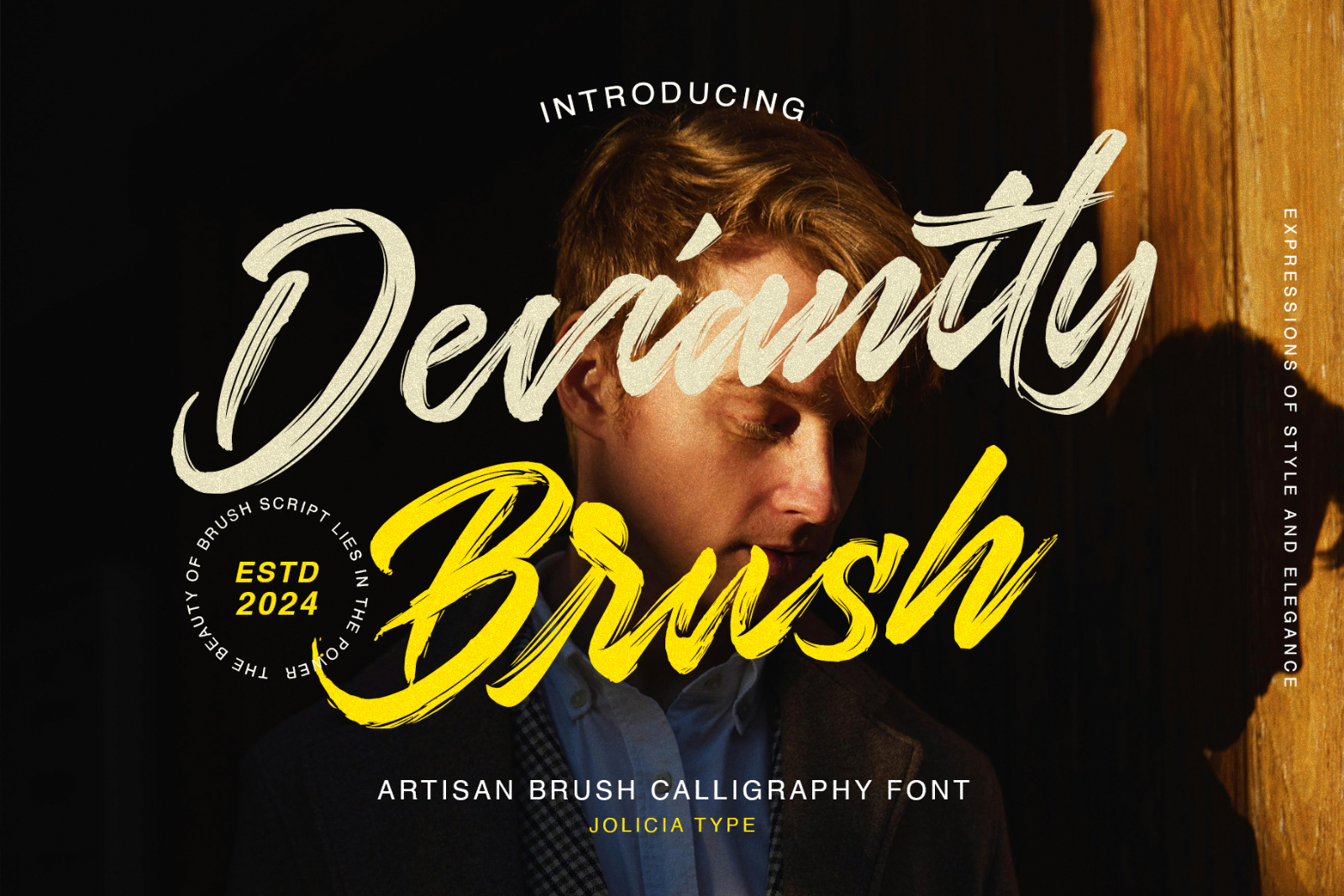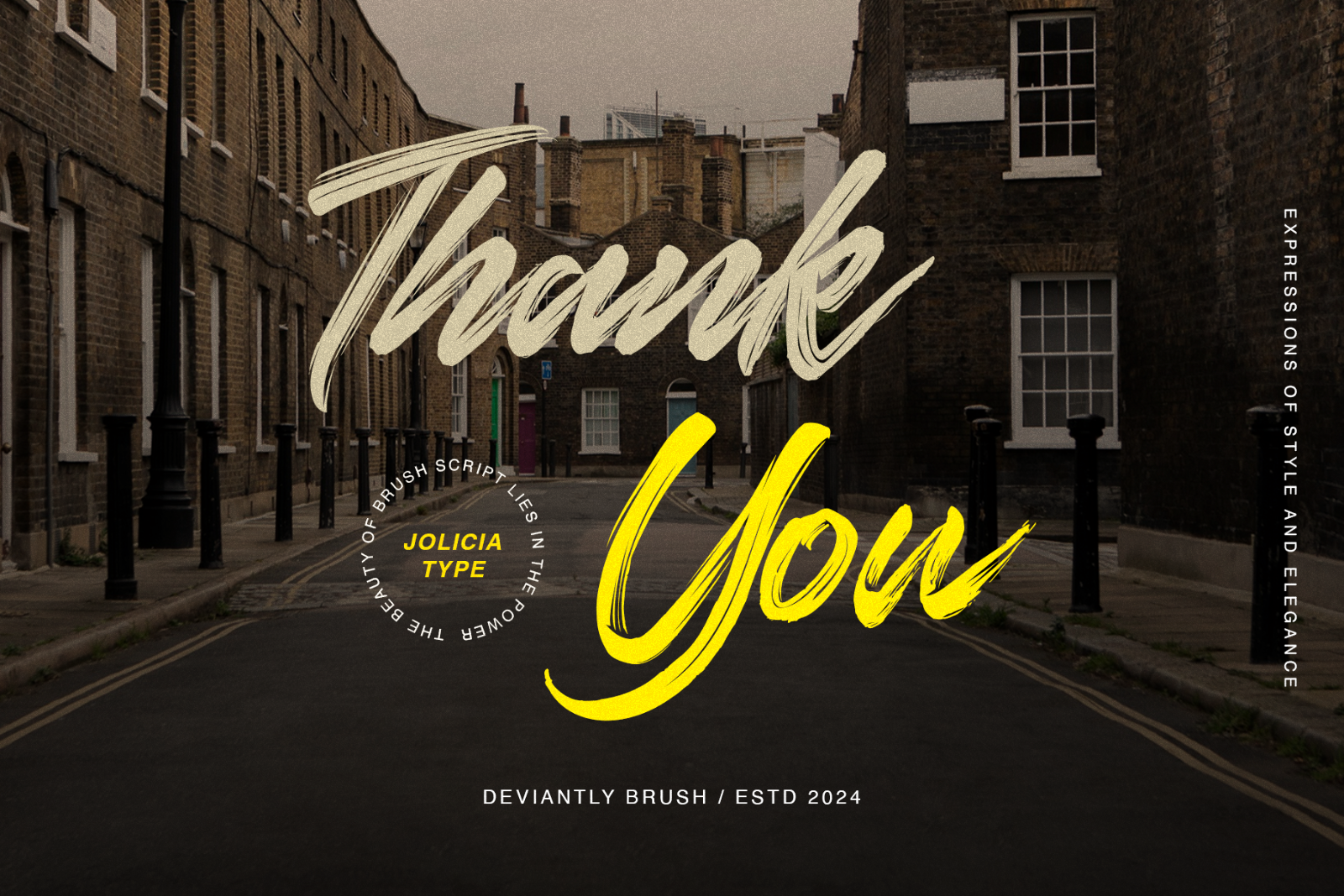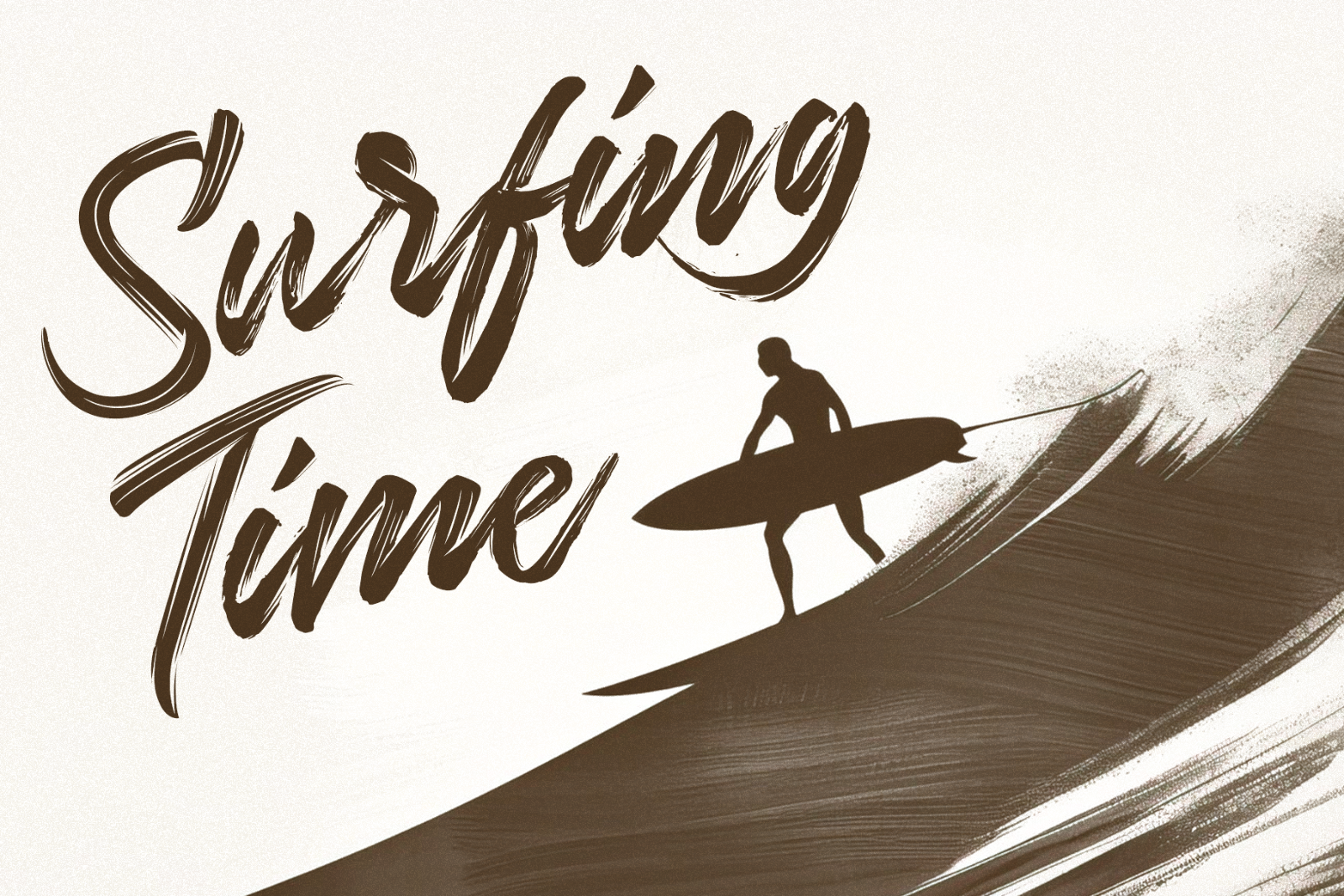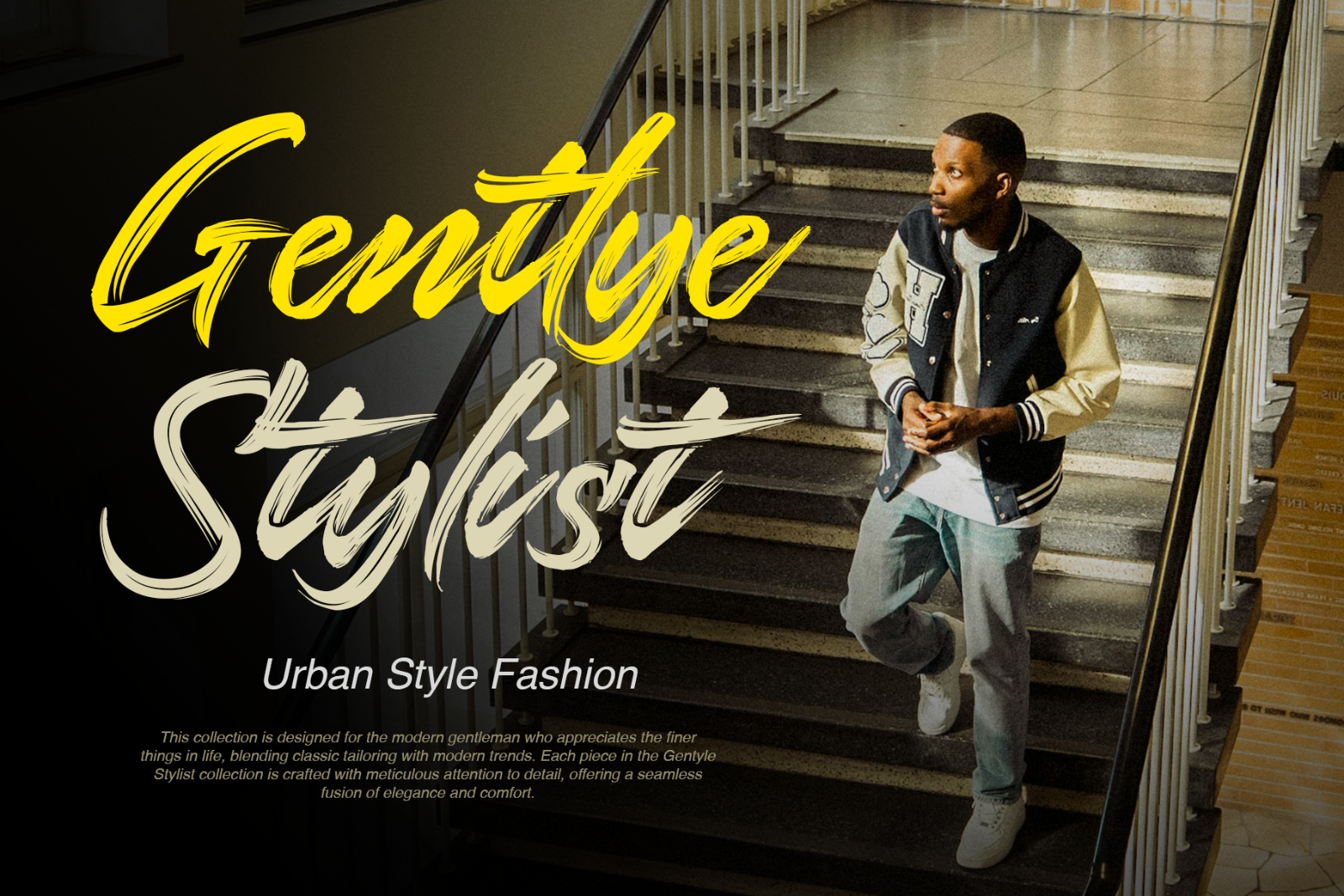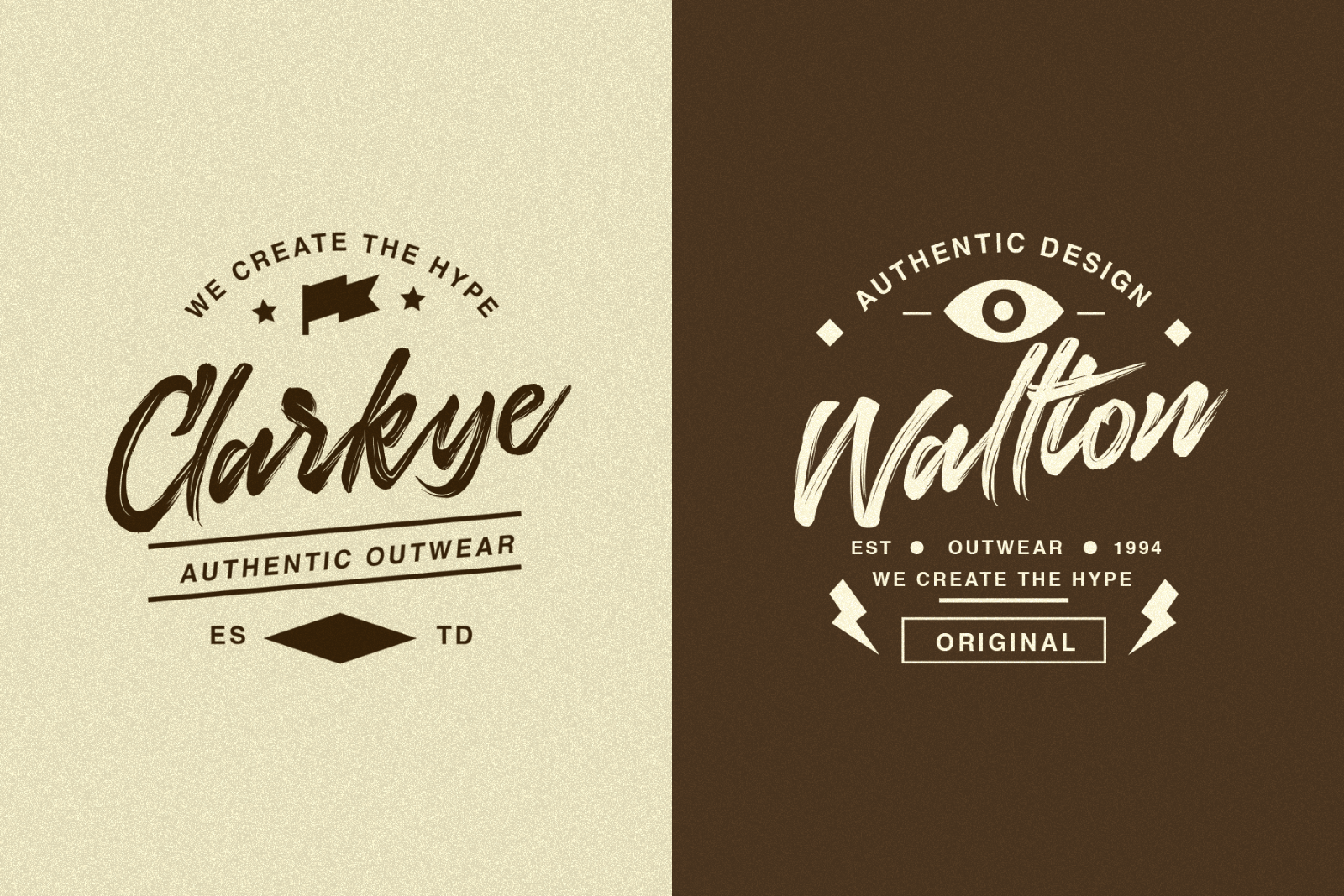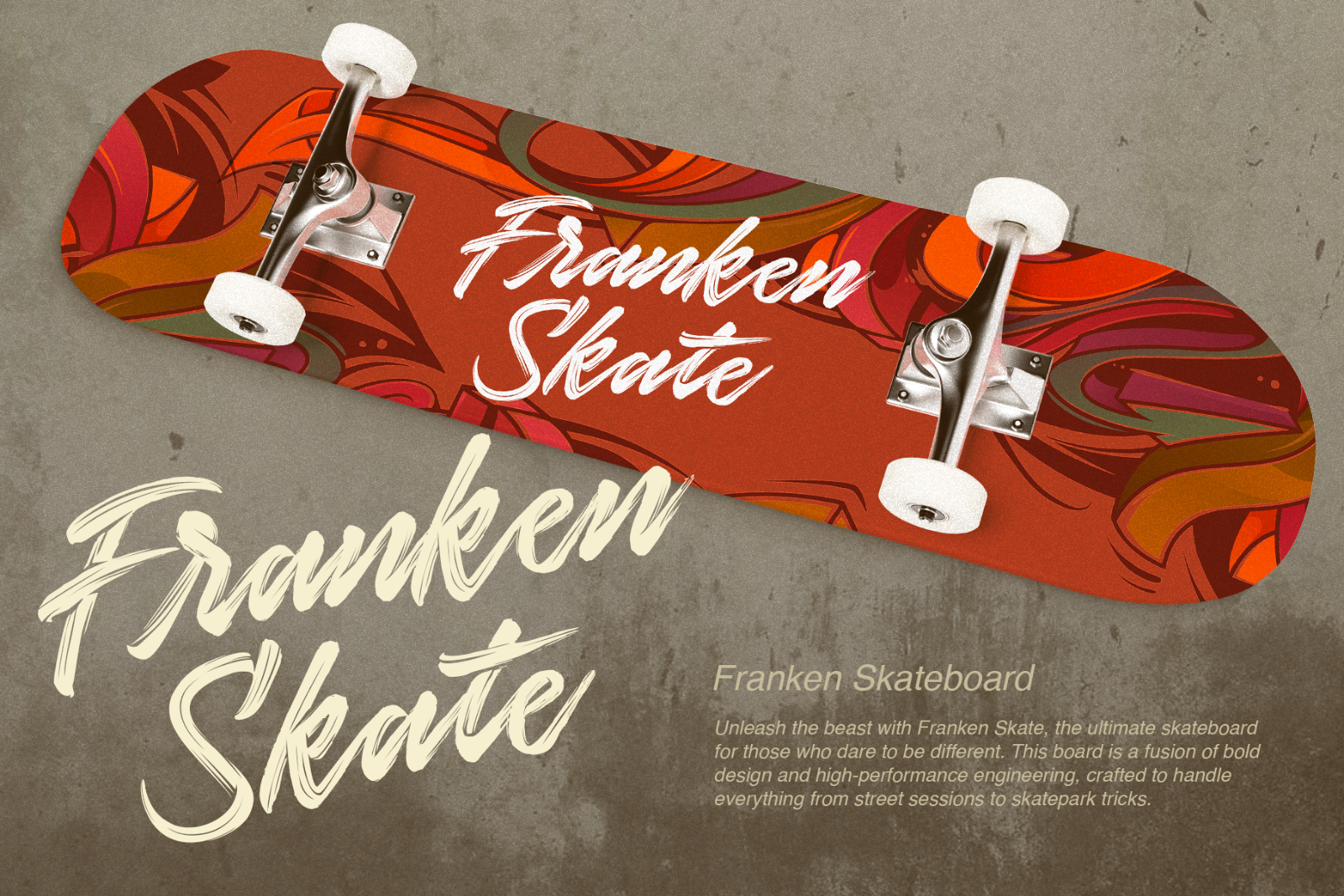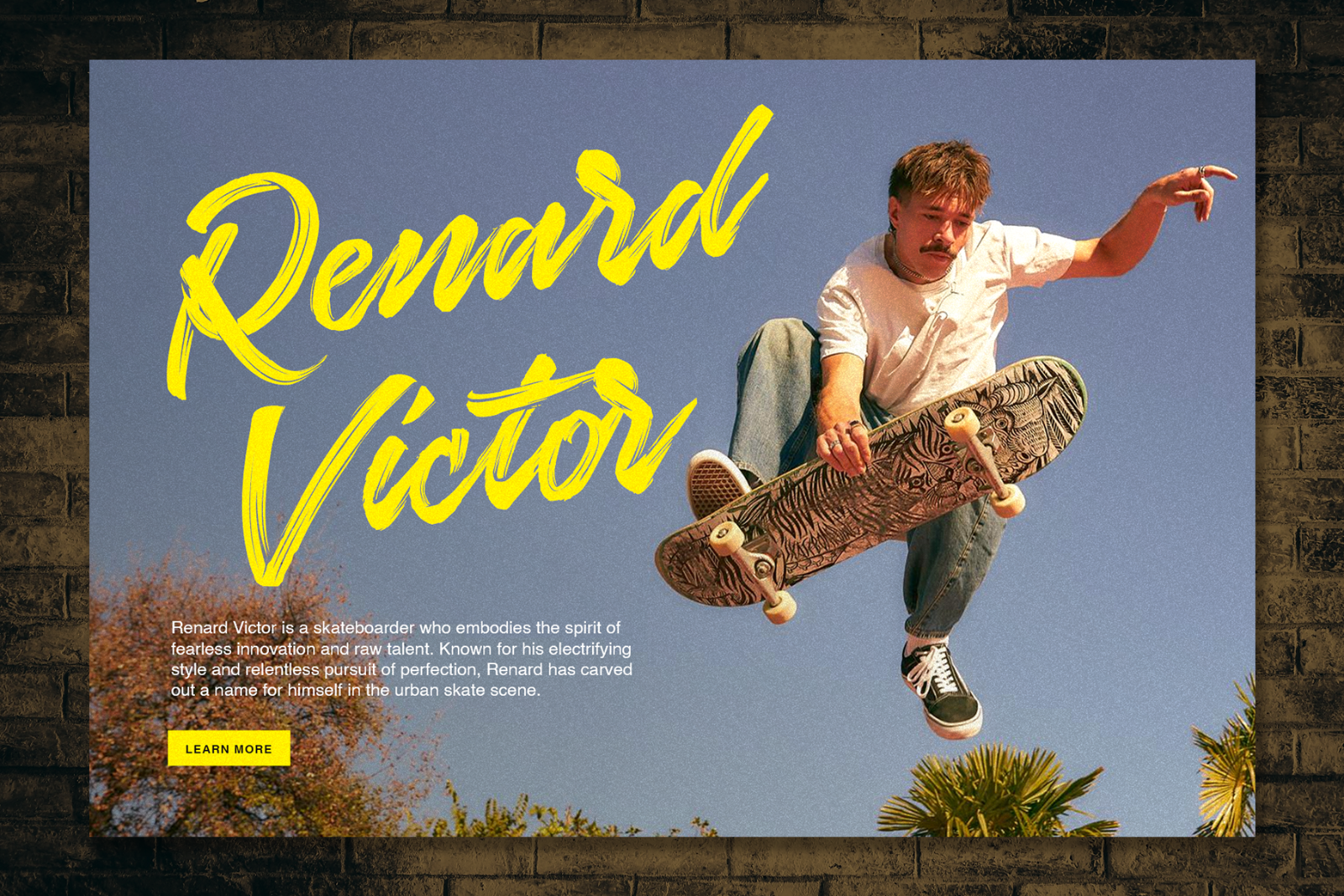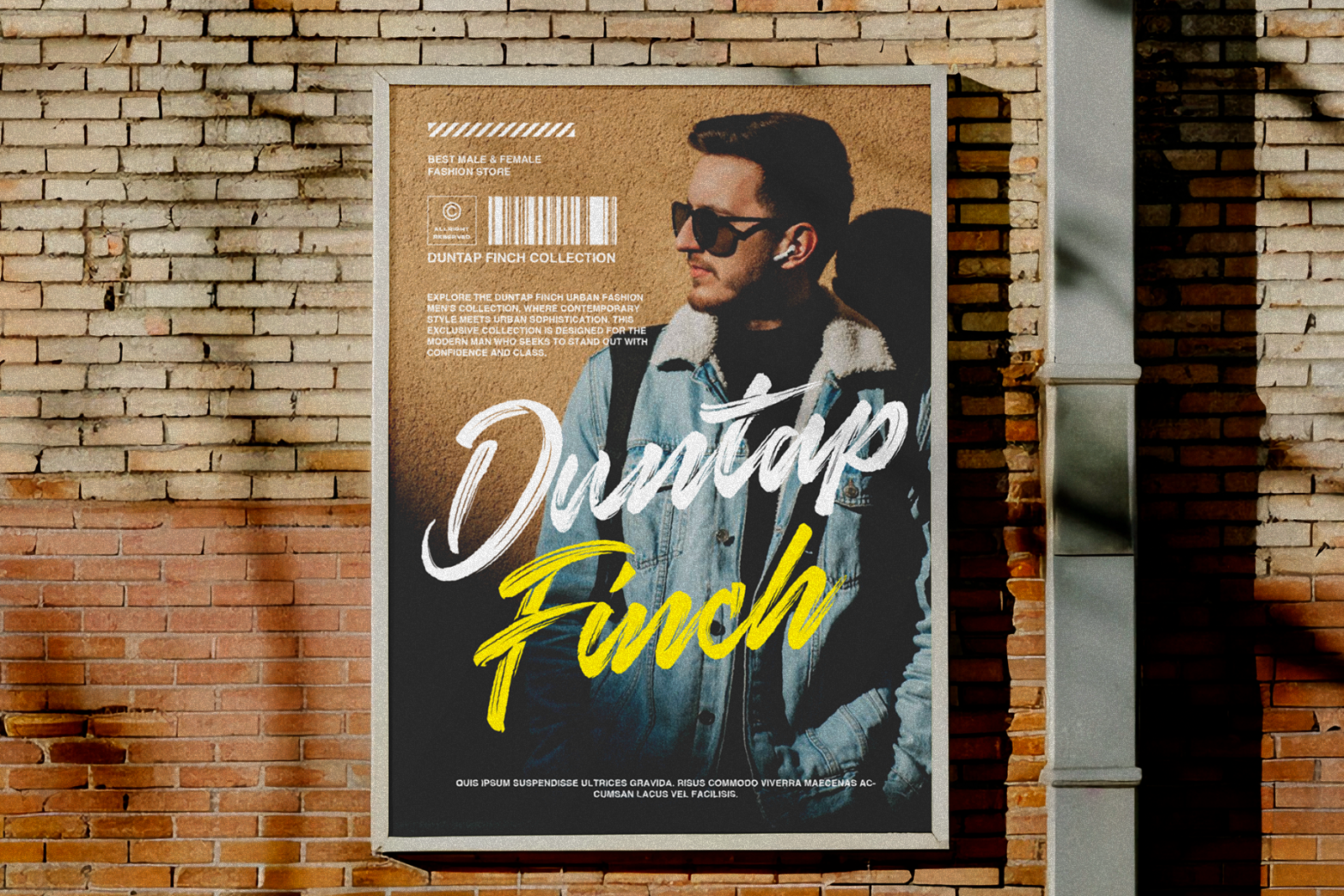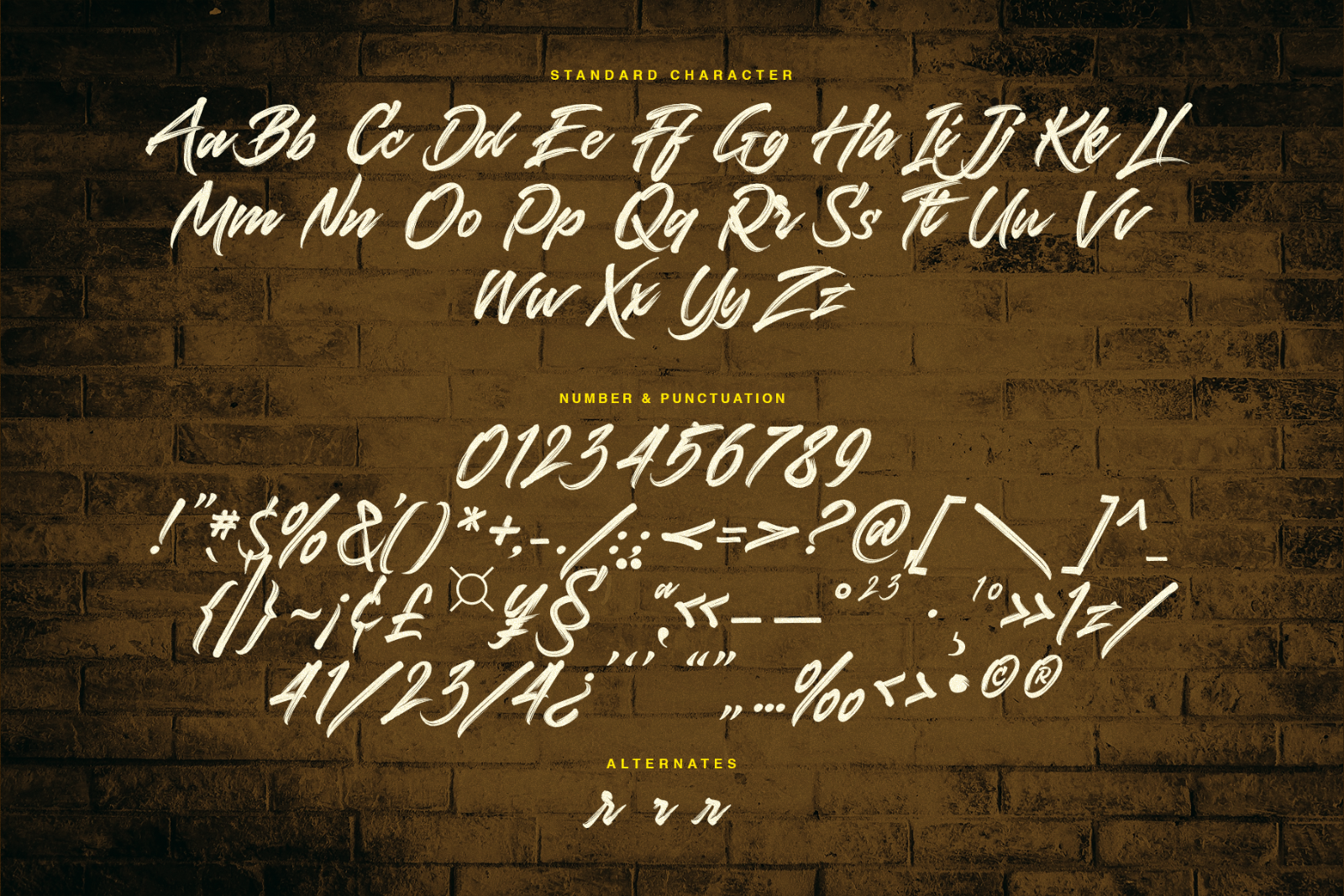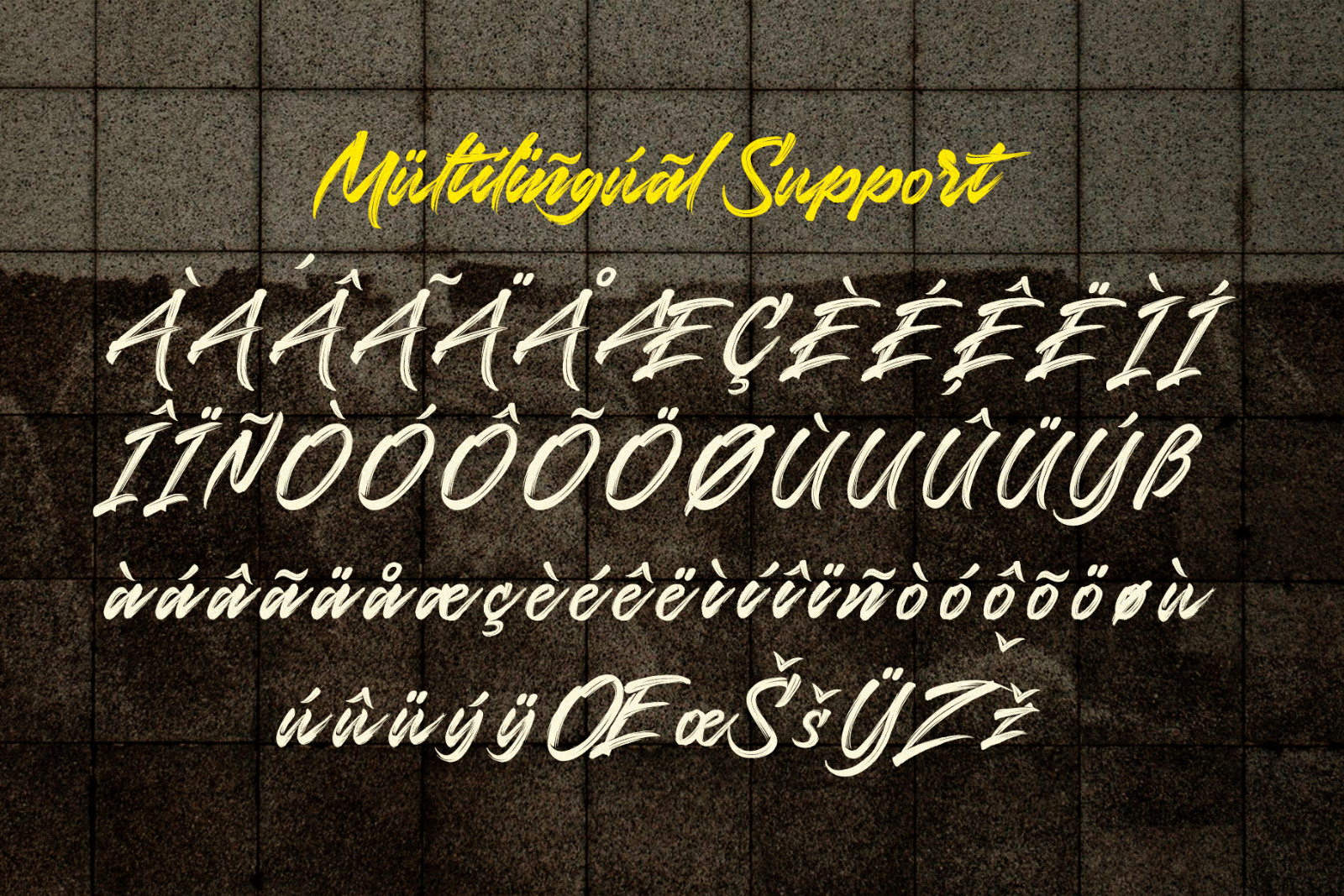
Deviantly Brush is a artisan brush and expressive handwritten script that captures the raw energy of rebellious creativity. Each stroke of this font is infused with a sense of defiance and individuality, making it the perfect choice for projects that need to make a statement. With its rough edges and spontaneous flow, Deviantly Brush brings a dynamic, handcrafted feel to your designs, ideal for everything from edgy branding to eye-catching posters. Whether you’re looking to add a touch of grit to your work or make a bold impression, Deviantly Brush delivers with style and attitude.